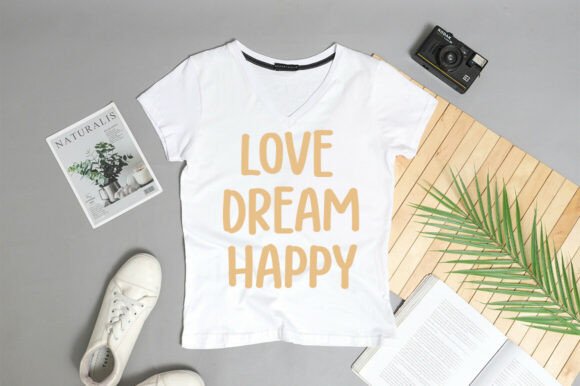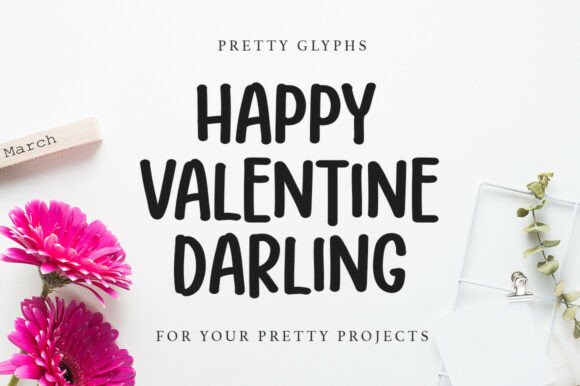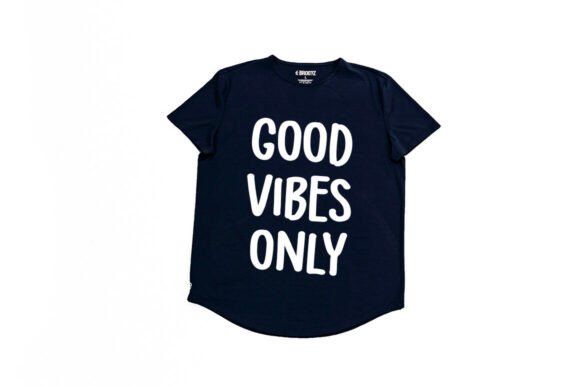
Introduction to Peachy Types Font
Have you ever stared at a blank page, trying to find the perfect words to convey your creative vision? As designers, we’ve all been there – searching for that elusive combination of style and substance to bring our ideas to life. It’s in these moments that the right font can be a game-changer. That’s where the Peachy Types Font comes in – a bold, expressive, and effortlessly stylish handwritten brush font that’s sure to elevate your design projects.
With its natural strokes, dynamic movement, and handcrafted texture, the Peachy Types Font is the perfect design resource for creatives who want to add a strong personality and authentic vibes to their work. Whether you’re working on a branding project or crafting social content, this font is a high-quality addition to any design arsenal – and the best part? It’s free to download and can be used on transparent backgrounds, making it a versatile tool for any creative project.
Peachy Types Font
- High-quality, unique design ideal for creative projects and design resources.
- Perfect for use in digital and print design, including logos, typography, and other design elements.
Honest Review: Peachy Types Font
I recently had the chance to try out the Peachy Types Font for my current creative project, and I must say it’s been a great addition to my design resources.
- ✨ The font’s high-quality design and smooth lines make it perfect for various applications, from logos to body text.
- ✨ The transparent background allows for easy customization and integration with other design elements.
- ⚠️ The font may not be ideal for very small text sizes, as it can become pixelated and lose its quality.
- ⚠️ Some users may find the font’s cursive style too playful or distracting for certain projects.
Overall, I’m impressed with the Peachy Types Font, and I would definitely recommend it to designers looking for a high-quality, versatile font for their creative projects. With its clear, modern design and transparent background, it’s a great addition to any design resource library.
Introduction to Peachy Types Font
Peachy Types Font is a high-quality design resource ideal for creative projects. It’s a free download that offers a unique and elegant touch to any design. This font is versatile and can be used for a variety of purposes, from branding to editorial content.
Tips for Getting the Most Out of Peachy Types Font
To get the most out of Peachy Types Font, use it with a high-quality image or background to create a visually appealing design. You can also experiment with different font sizes and styles to add emphasis to your text.
Common Use Cases for Peachy Types Font
Peachy Types Font is commonly used for branding, editorial content, and creative projects. It’s also ideal for use in social media graphics, presentations, and marketing materials.
Is the Peachy Types Font a high-quality font?
Yes, the Peachy Types Font is a high-quality font designed to provide a professional and elegant look for your designs. With its clean and modern design, it’s perfect for a wide range of creative projects, from logos and branding to digital products and print materials. The font’s high quality ensures that it will display well on various devices and screens, making it an excellent design resource for any project.